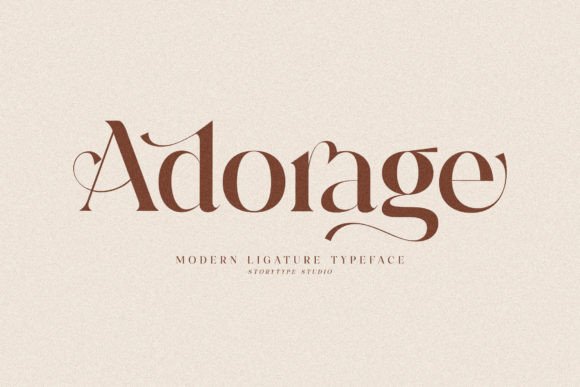
The Retro Charm of Adorage Font: A Designer’s Delight
I still remember the design project that made me fall in love with the Adorage font. I was working on a vintage-themed branding campaign for a client, and I was struggling to find the perfect serif font that would evoke the nostalgia and playfulness of the 1950s. That’s when I stumbled upon Adorage, and it instantly became my go-to font. In this article, I’ll share my experience with Adorage, its features, and how to make the most of it in your designs.
An Honest Review of Adorage Font
What I Love About Adorage ✨
• ✅ Unique Vintage Aesthetic: Adorage has a distinct retro charm that sets it apart from other serif fonts. Its elegant lines, subtle flair, and classic proportions make it perfect for designs that require a touch of nostalgia.
• ✅ Playful yet Sophisticated: Adorage strikes the perfect balance between playfulness and sophistication, making it suitable for a wide range of design projects, from branding and packaging to posters and invitations.
• ✅ Highly Versatile: Adorage comes in various weights and styles, allowing you to experiment with different looks and moods in your designs.
• ⚠️ Limited Availability of OpenType Features: While Adorage supports some OpenType features, it may not have the extensive range of features you’re used to with other fonts.
• ⚠️ Glyphs and Special Characters: Some users have reported that certain glyphs and special characters are not readily available in Adorage. However, this can be addressed by using the font’s built-in glyph panel or third-party tools.
The Designer Inspiration Behind Adorage
Adorage was designed with the goal of capturing the essence of vintage typography while infusing it with a modern twist. Its creator drew inspiration from classic serif fonts of the past, combined with a dash of playfulness and whimsy. The result is a font that feels both nostalgic and fresh, perfect for designers looking to add a touch of retro charm to their work.
Font Name Adorage Font
Author Storytype Studio
What is the best way to use Adorage in my designs? Adorage is a versatile font that can be used in a variety of design projects. Experiment with different font styles, weights, and OpenType features to find the perfect look for your project.
Is Adorage suitable for body text? While Adorage is primarily designed for display text, it can be used for body text in certain contexts. However, its legibility may vary depending on the font size and line spacing.